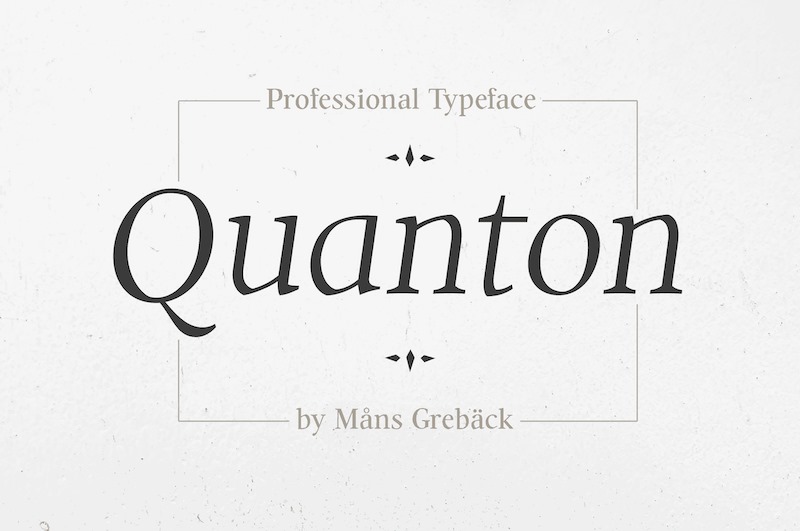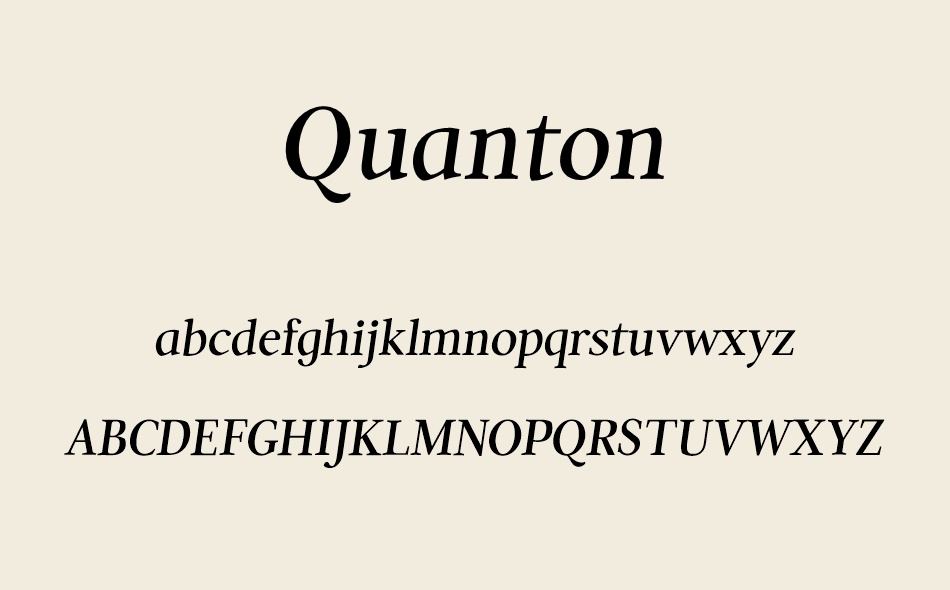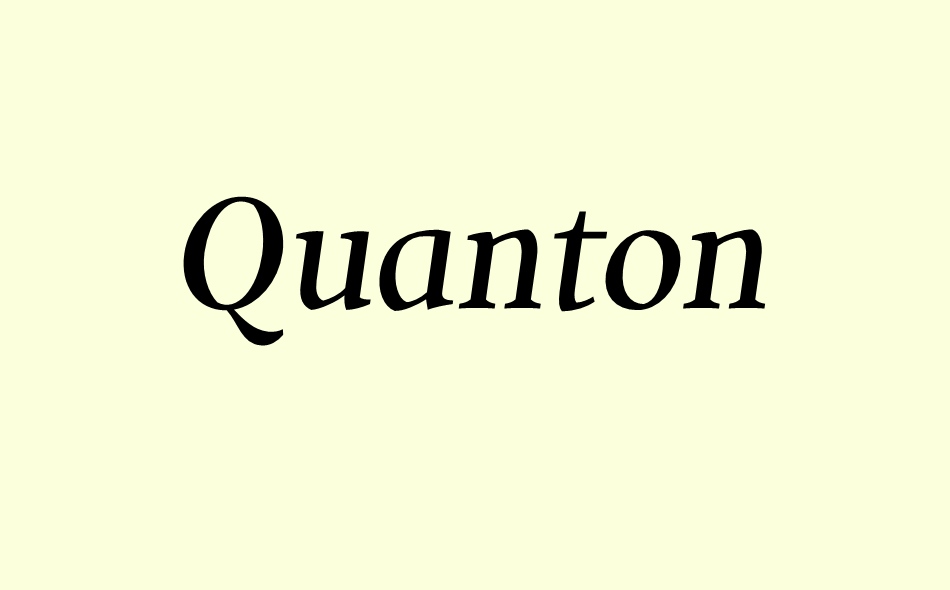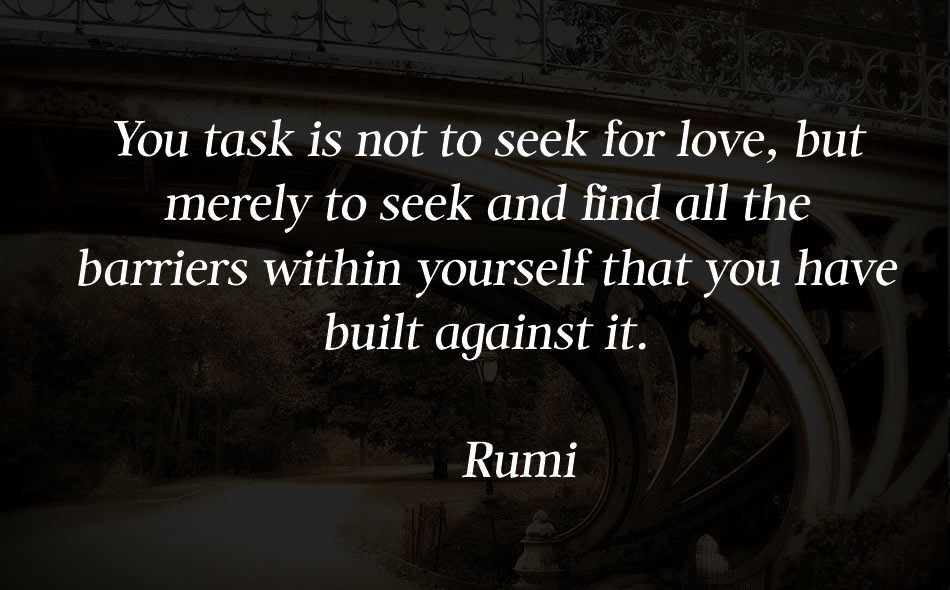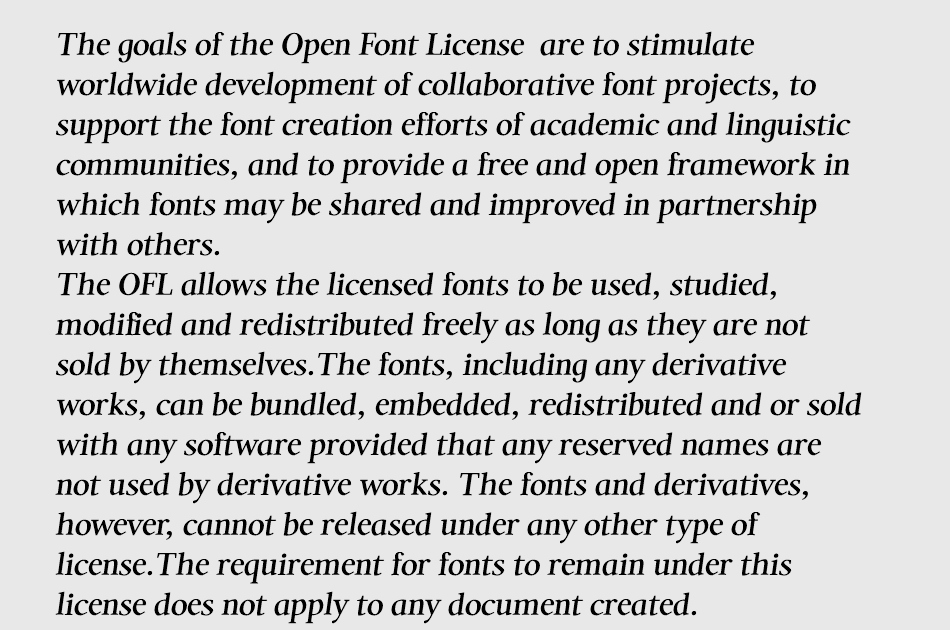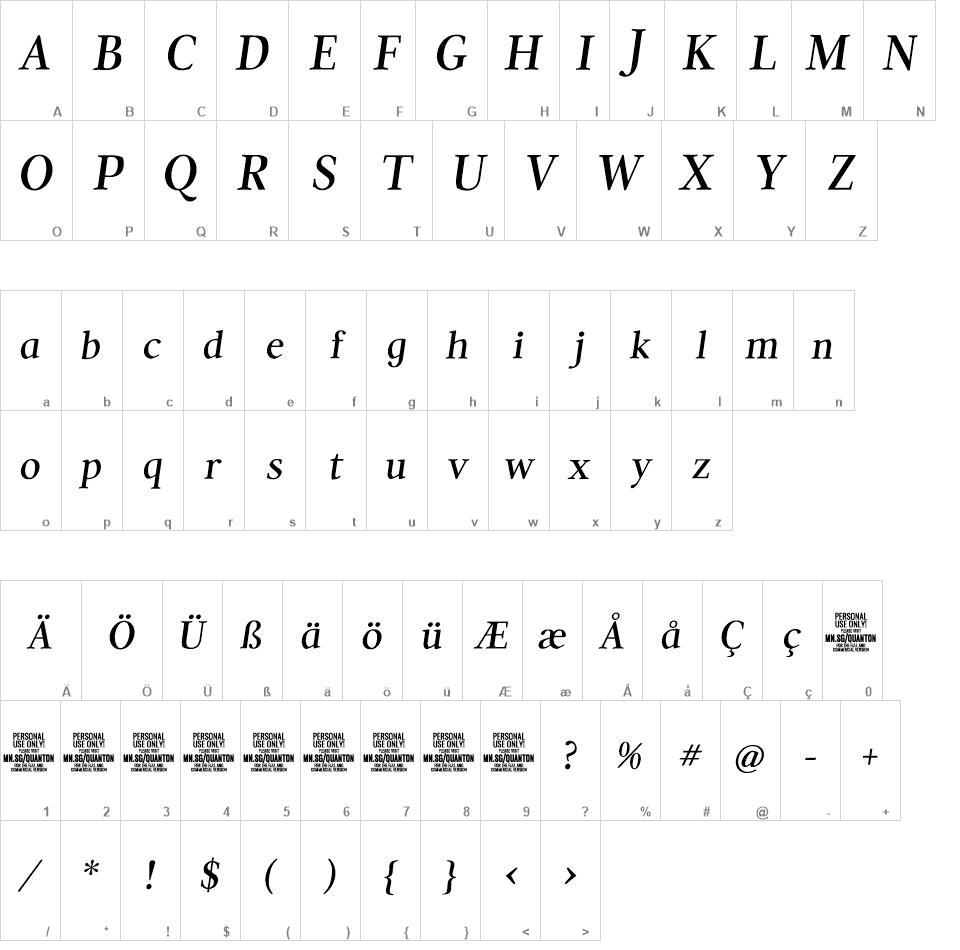
Quanton font
Quanton is a clear serif typeface in a modern style.
Its sharp edges and soft curves combines to the perfect balance of tradition and innovation.
Quanton has character and personality, while keeping regular and maintaining its legibility, making for an optimal headline and bodytext style.
The Quanton family consists of eight typeface styles:
The weights Thin, Medium, Bold and Black, and each thickness as Italic.
The font is built with advanced OpenType functionality and has a guaranteed top-notch quality, containing stylistic and contextual alternates, ligatures and more features; all to give you full control and customizability.
It has extensive lingual support, covering Arabic and all Latin-based languages, from North Europe to South Africa, from America to South-East Asia.
It contains all characters and symbols you'll ever need, including all punctuation and numbers.